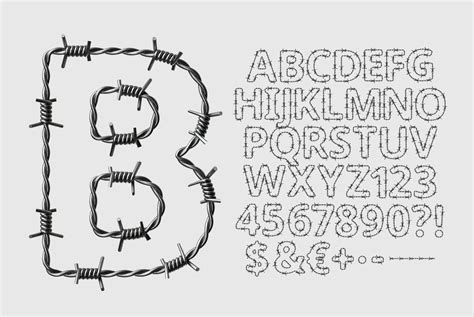
Barbed Wires Font
Click to find the best 17 free fonts in the barbed wire style. Web barbed wire fonts. Web collection of fonts for barbed wire fonts. Barbed wire font family was designed by andrew smith and published by monotype. Web individual styles from $29.99. Fontget.com has the largest selection of barbed wire fonts. Collection of fonts for barbed wire fonts. Every font is free to download! Web looking for barbed wire fonts? Web download barbed wire fonts for free in the highest quality available.